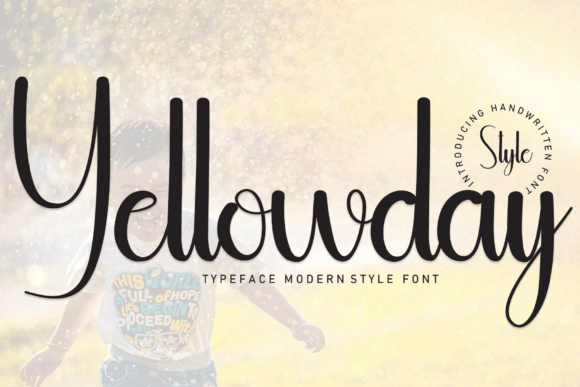
Feast your eyes on Yellowday Font, the enchanting handwritten font that exudes warmth and charm. Its graceful strokes and playful curves are a testament to the beauty of imperfection, adding a touch of whimsy and personality to your creative projects. Whether you're designing wedding invitations, crafting heartfelt cards, or seeking a unique touch for your next project, Yellowday Font stands ready to captivate and inspire.
Step into a world of delightful possibilities, where your words dance across the page with elegance and flair. Yellowday Font's charming imperfections lend an authentic, handcrafted feel to your designs, evoking a sense of nostalgia and timeless appeal. Let your imagination soar as you explore its expressive characters, each one imbued with a distinct personality that will bring your projects to life.
With Yellowday Font, you hold the key to unlocking a world of creative potential. Its versatility knows no bounds, effortlessly adapting to a myriad of design styles, from whimsical and playful to elegant and sophisticated. Whether you're creating social media graphics, eye-catching logos, or stunning website designs, Yellowday Font seamlessly blends with your vision, adding a touch of magic to every project.
Join the ranks of creative visionaries who have embraced Yellowday Font's allure, transforming their designs into captivating works of art. Experience the joy of crafting projects that resonate with your audience, leaving a lasting impression that sets you apart from the ordinary. Let Yellowday Font be your creative companion, guiding you on a journey of self-expression and artistic triumph.